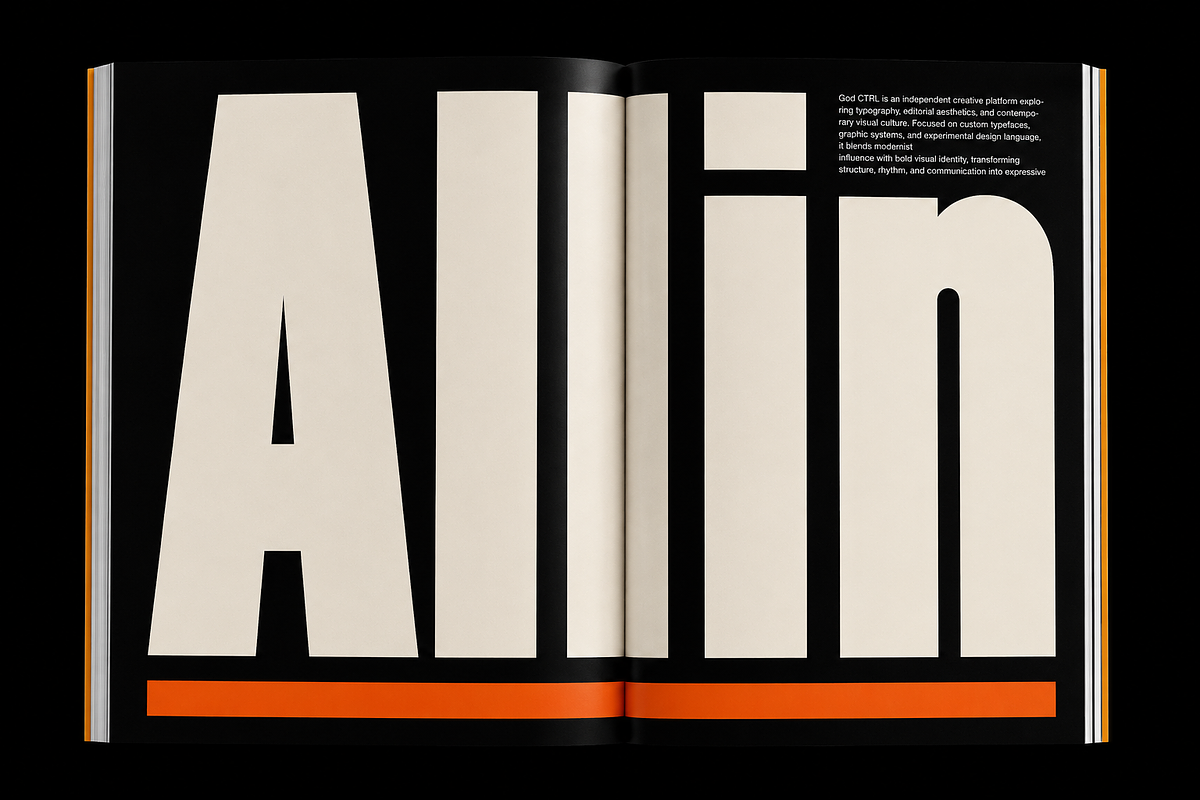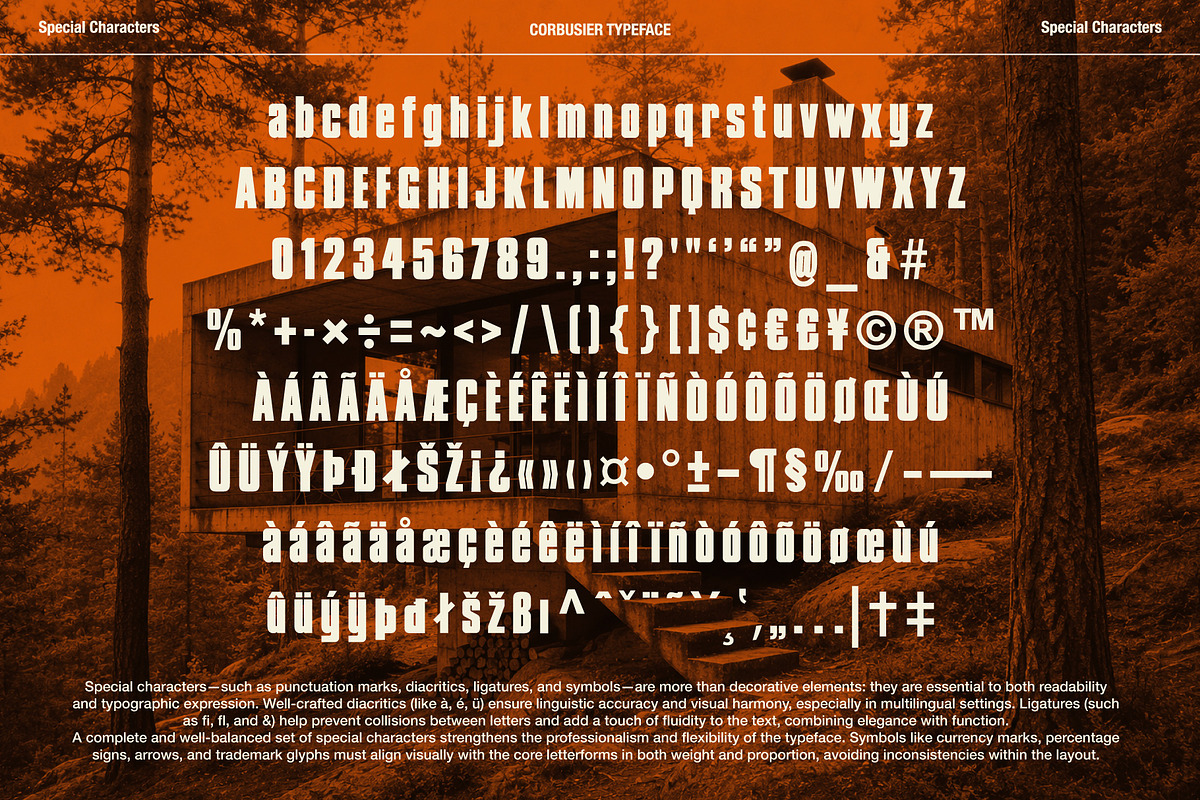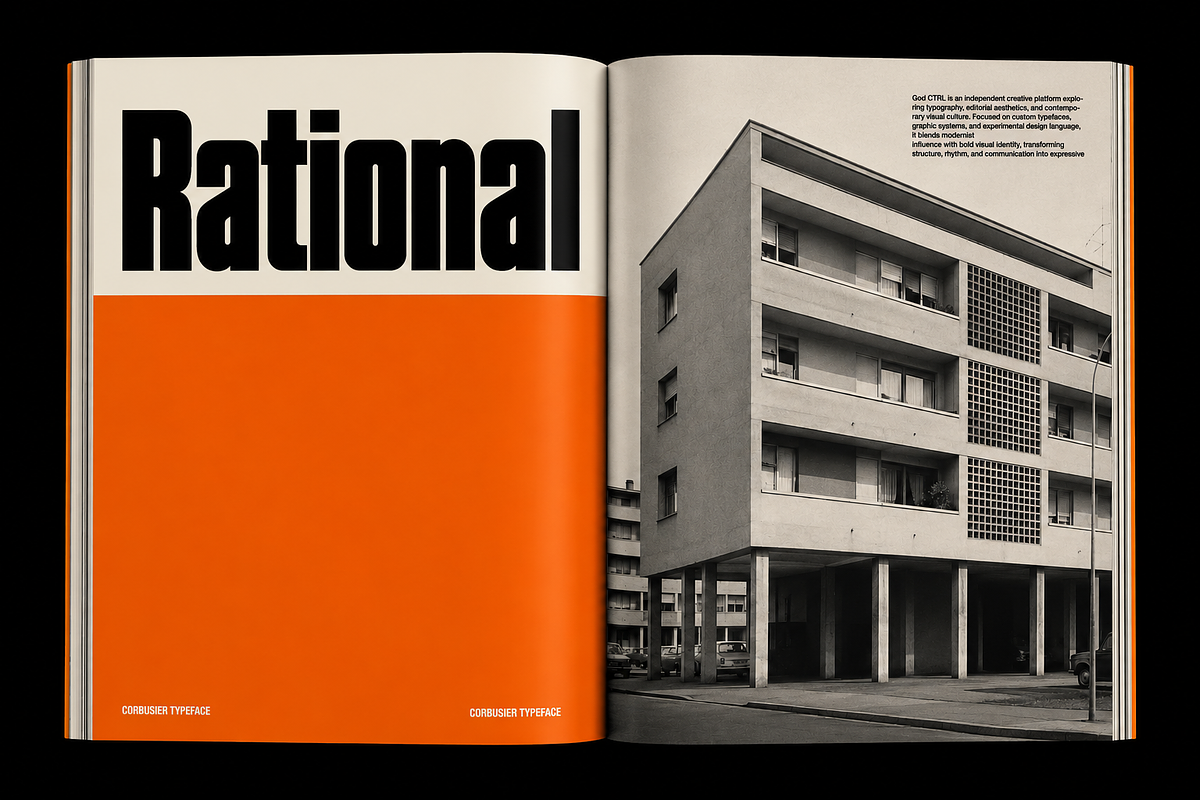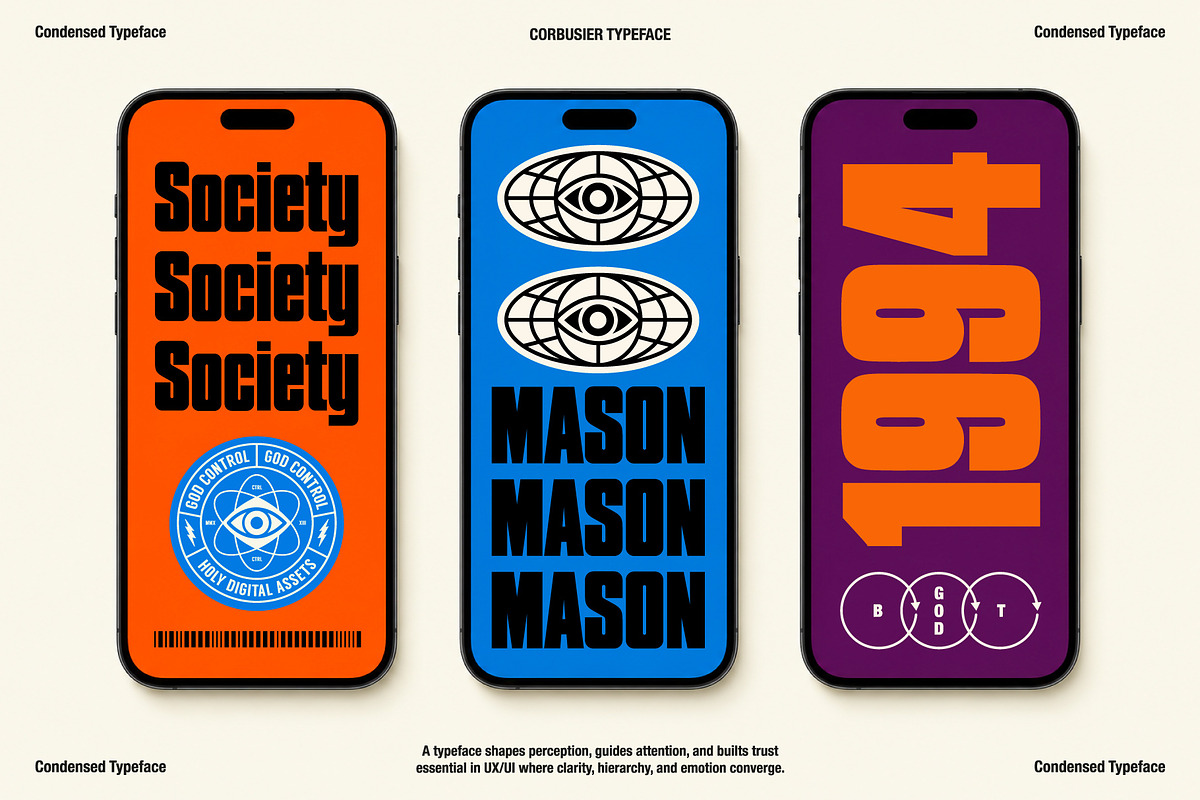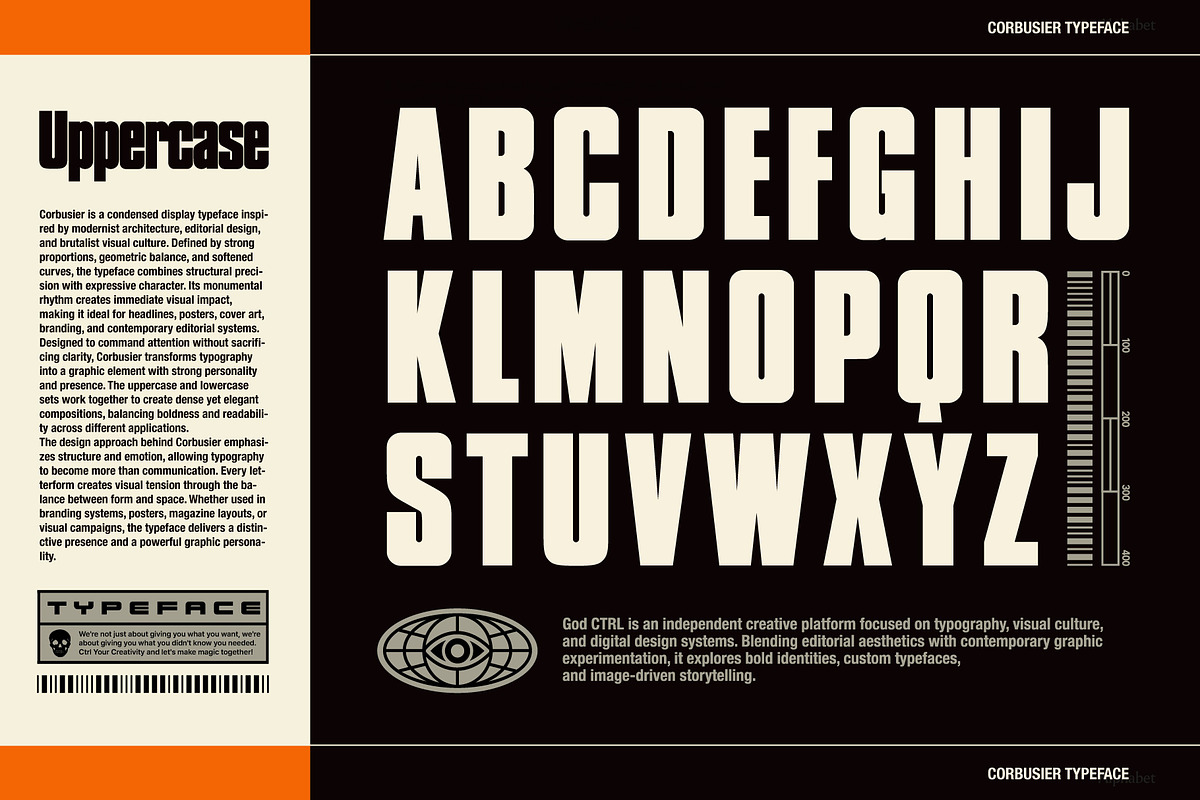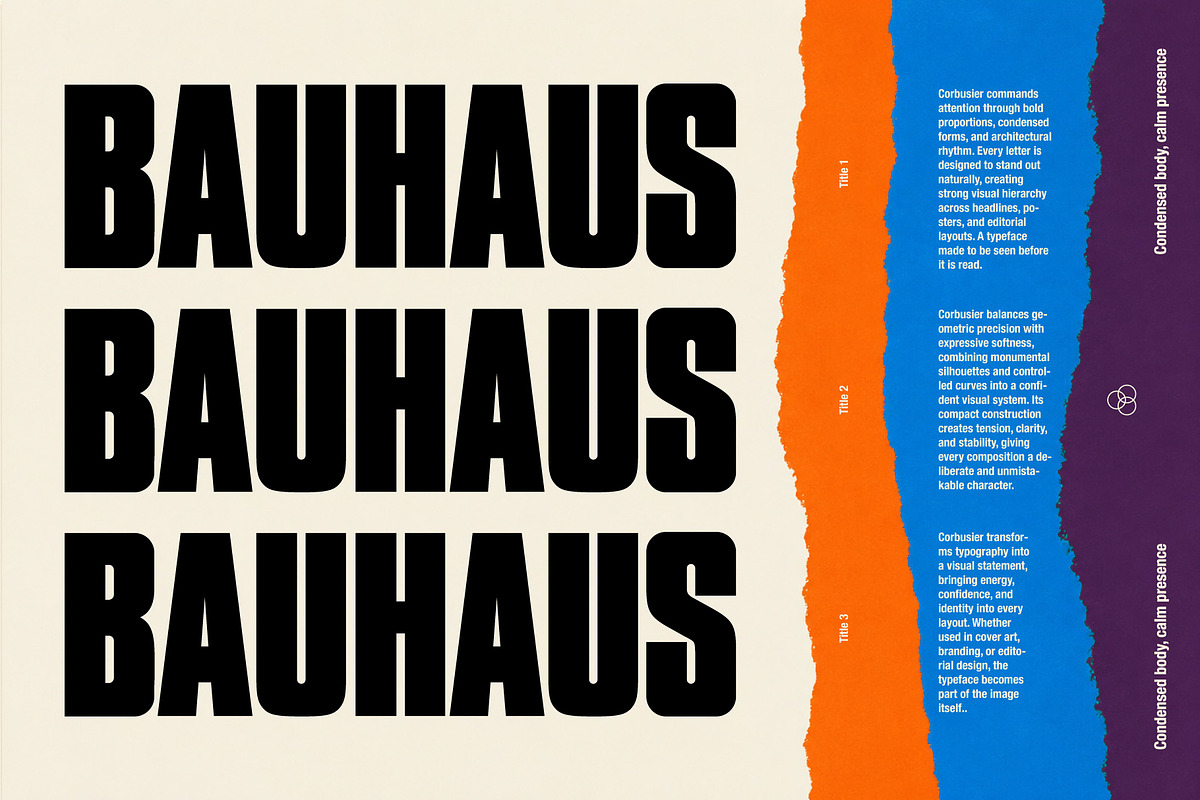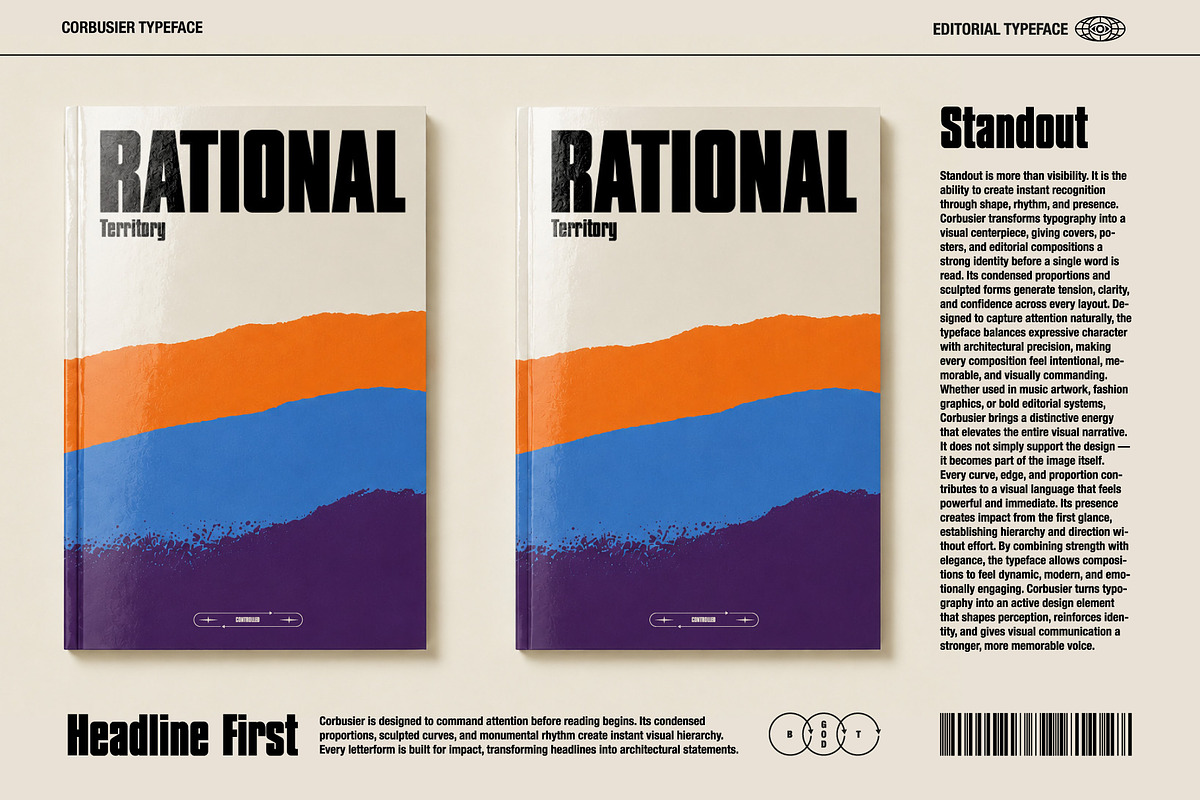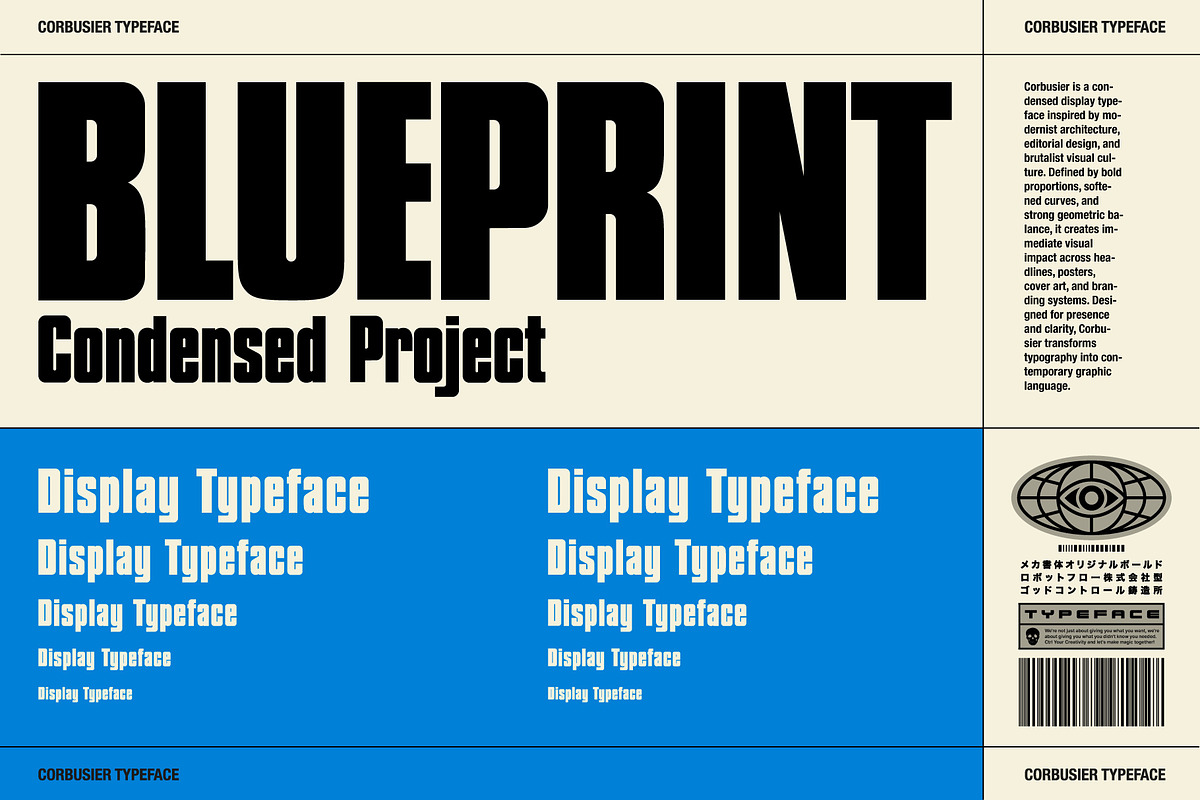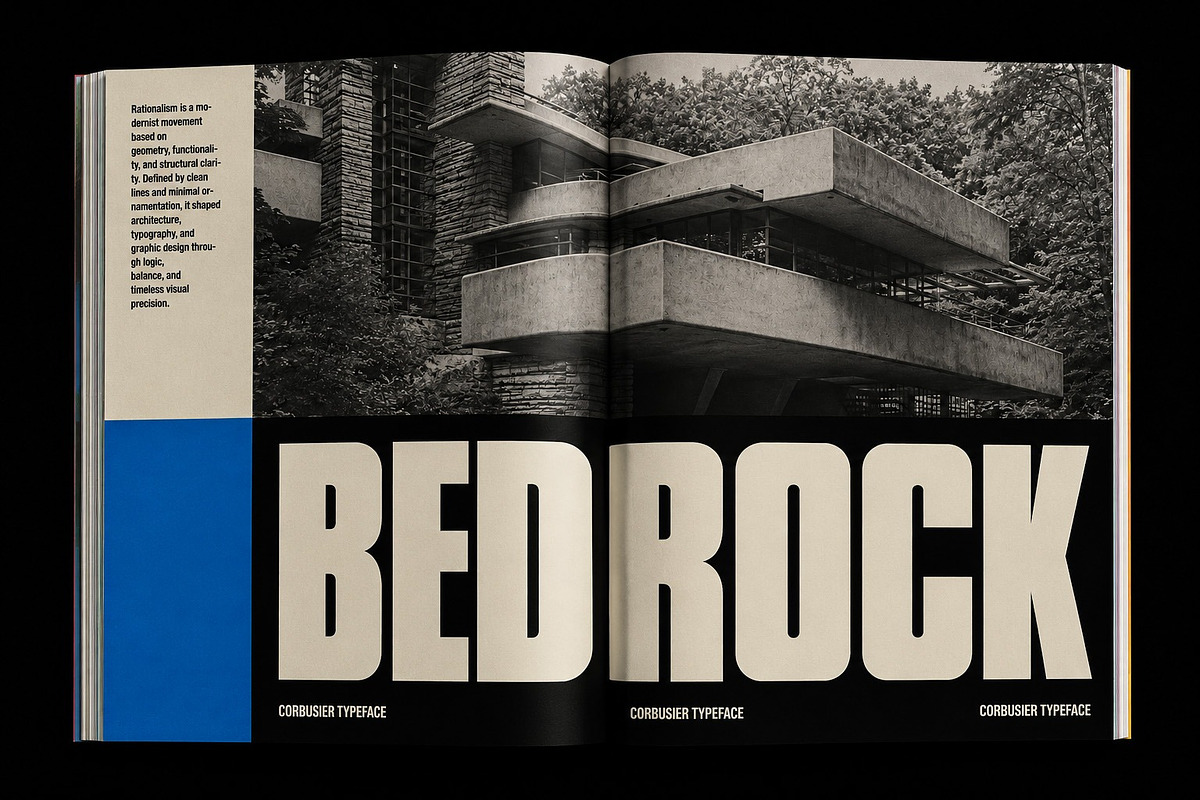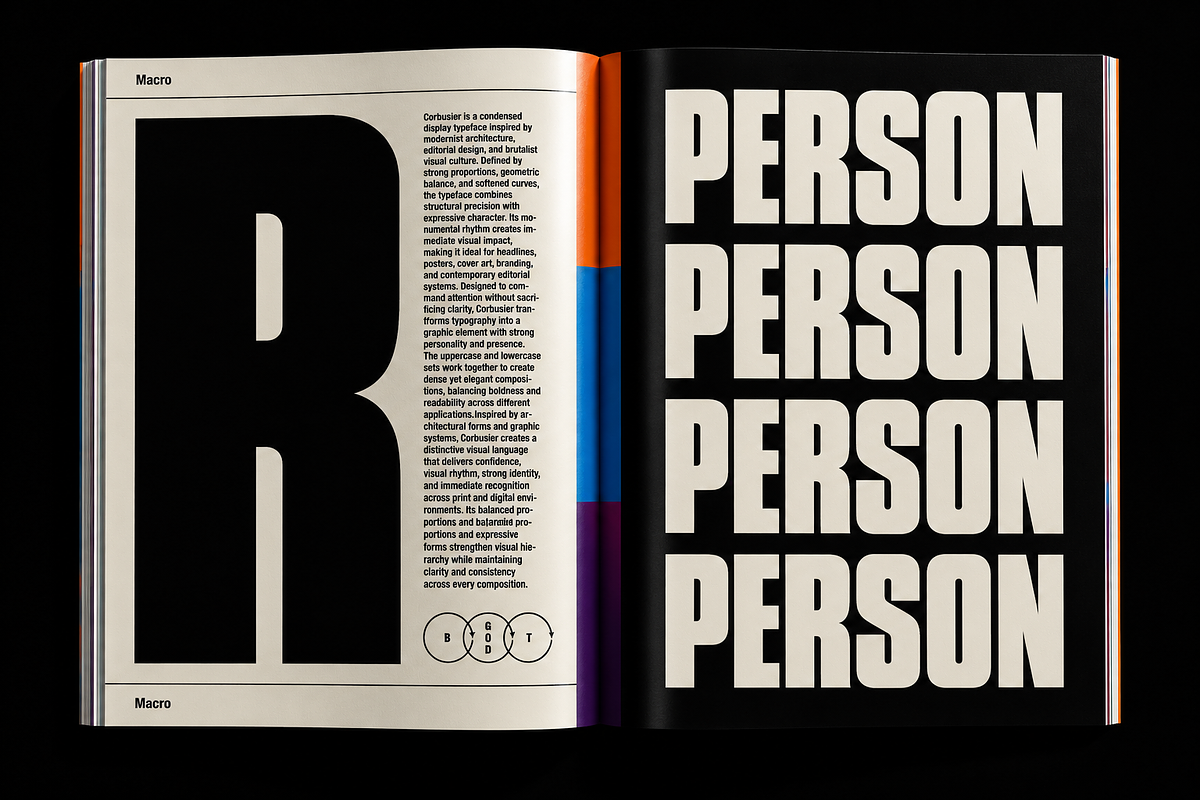
Corbusier Sans Serif Typeface
Corbusier is a condensed display typeface designed to create strong visual presence through balance, rhythm, and controlled proportions. Defined by compact forms, softened corners, and bold geometry, it combines structure with a more refined visual flow. Every character has been carefully shaped to create consistency and impact across different compositions.
The lowercase introduce a smoother rhythm while maintaining a cohesive system and clear readability. The uppercase are condensed and confident, designed to establish hierarchy and visual clarity without dominating the composition.
Suitable for headlines, posters, cover art, magazines, branding, packaging, and digital applications, Corbusier is designed for projects where typography becomes part of the visual language.